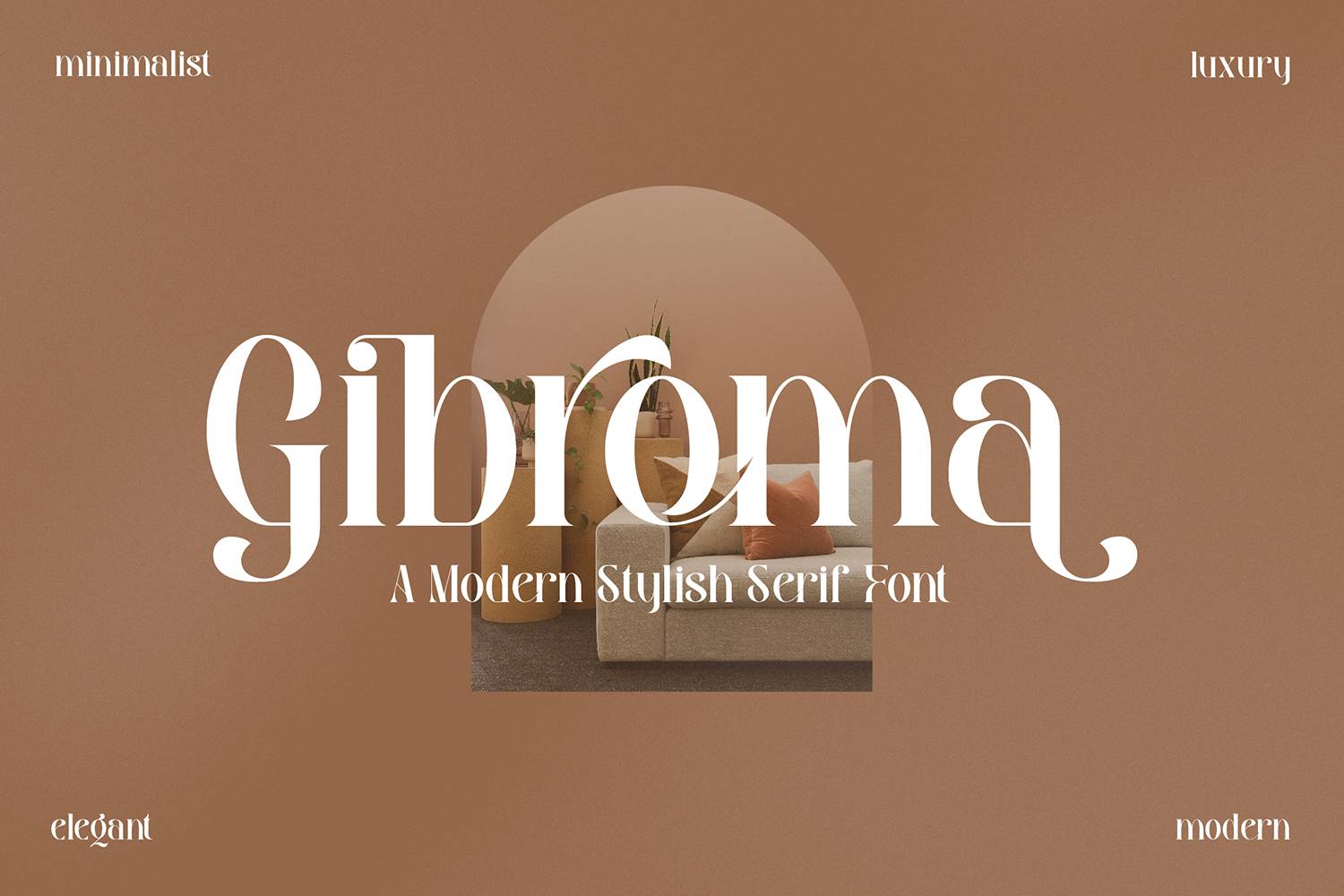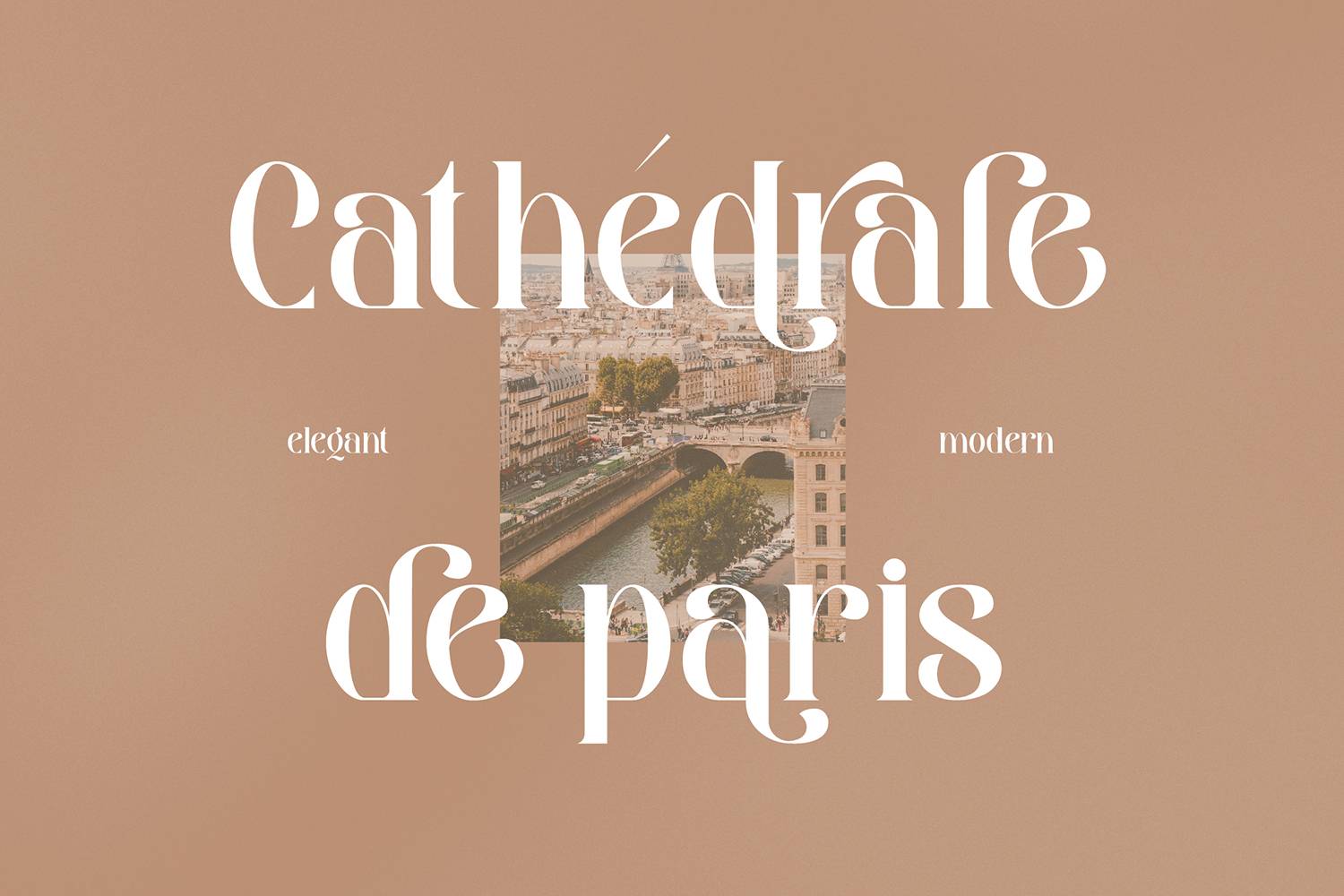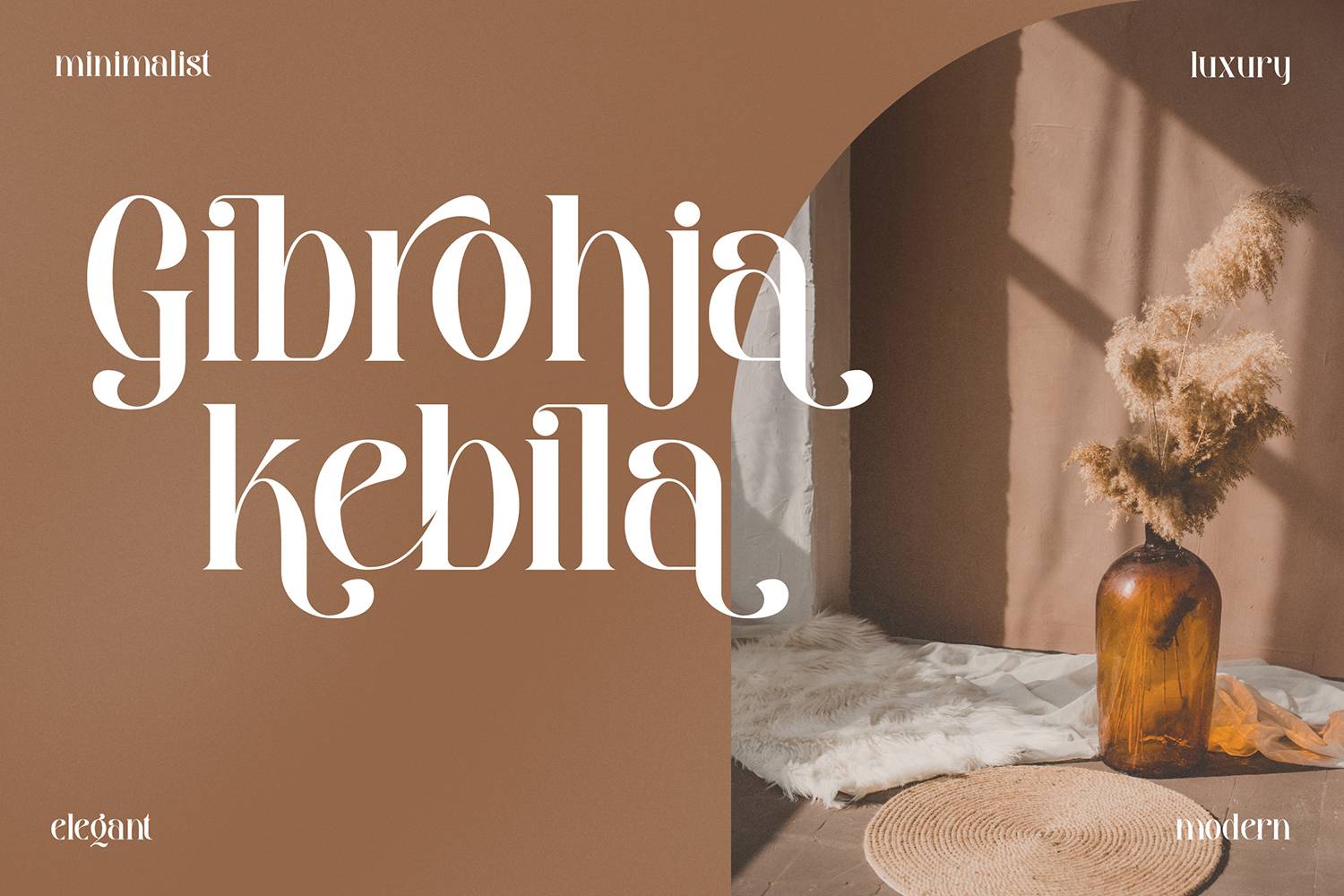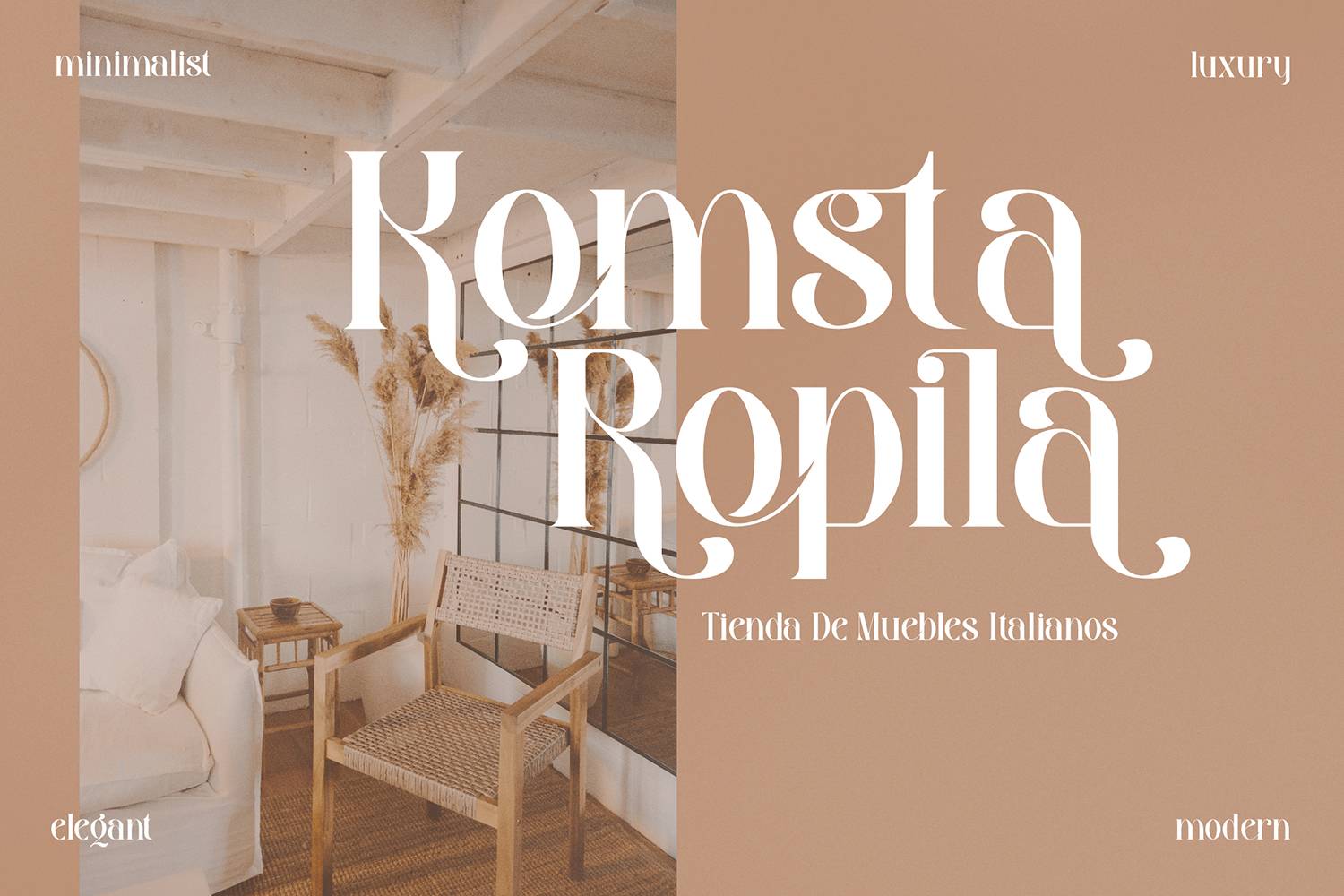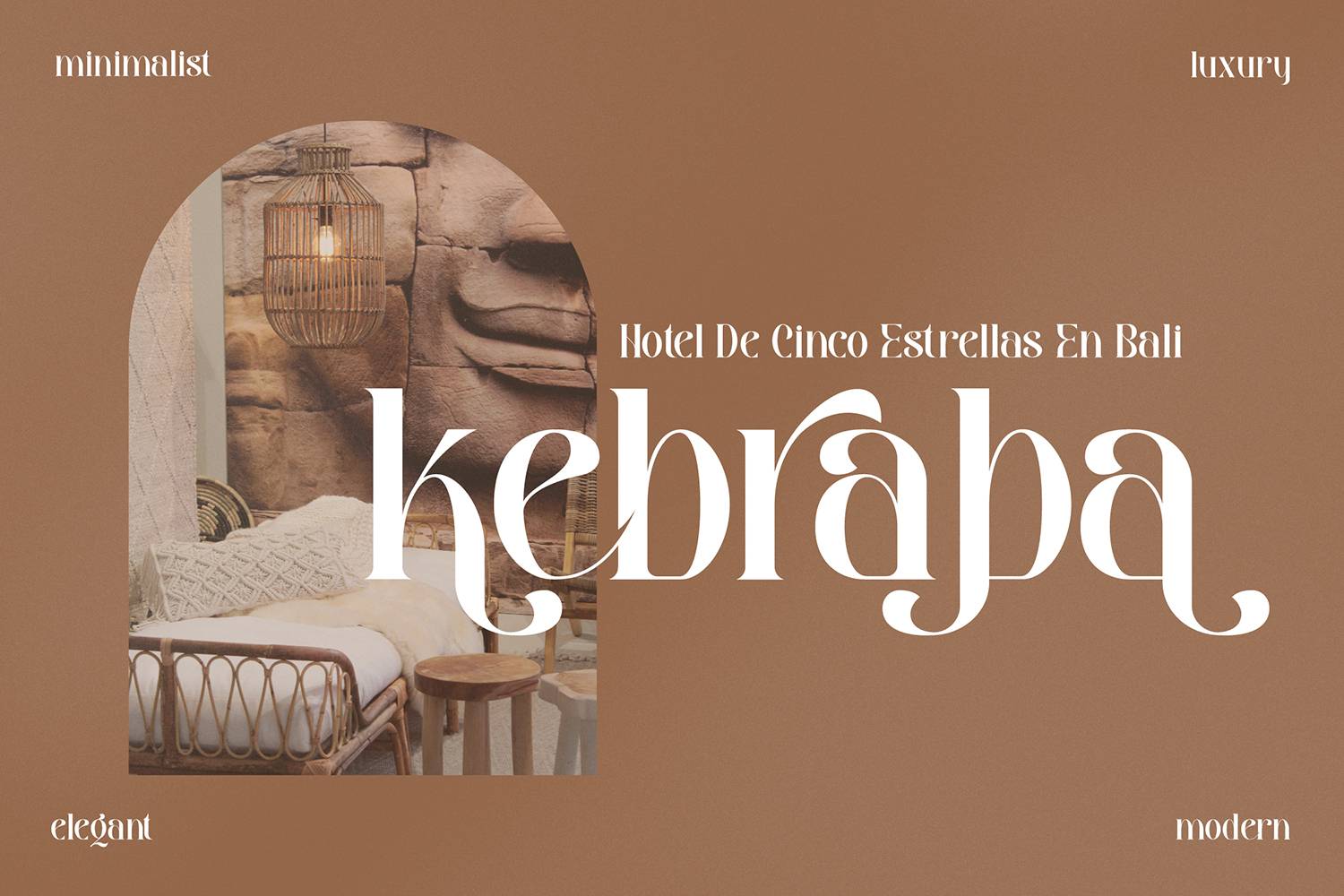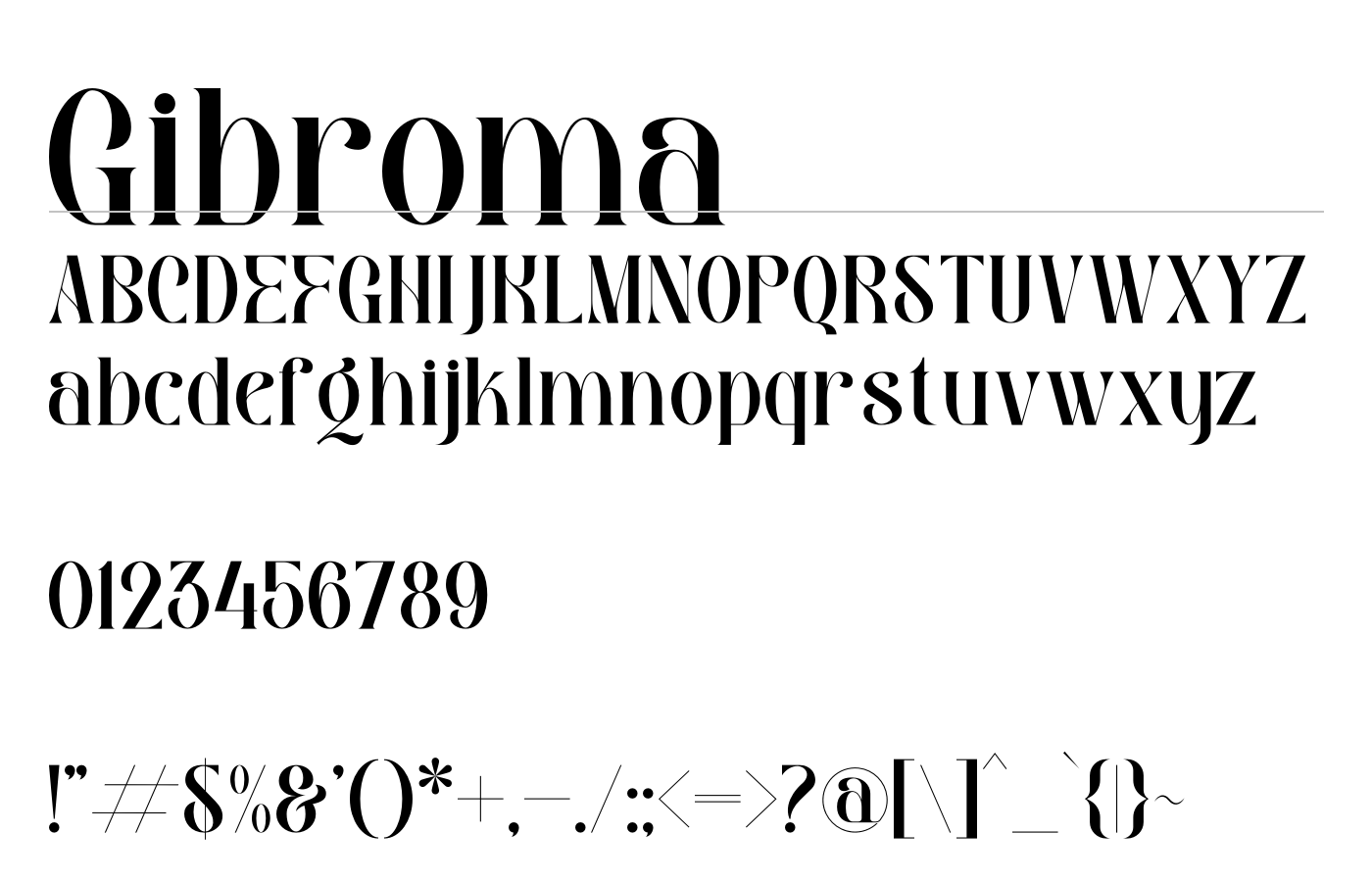
Gibroma is a striking serif typeface with a modern and elegant feel, characterized by high contrast between thick and thin strokes and unique angular details that add personality and sophistication. Its narrow proportions and sharp serifs create a refined, stylish look ideal for fashion branding, luxury packaging, and eye-catching headlines. This font stands out with its artistic flair while maintaining readability, making it perfect for designs that demand both elegance and impact.
Gibroma Font
About Gibroma Font